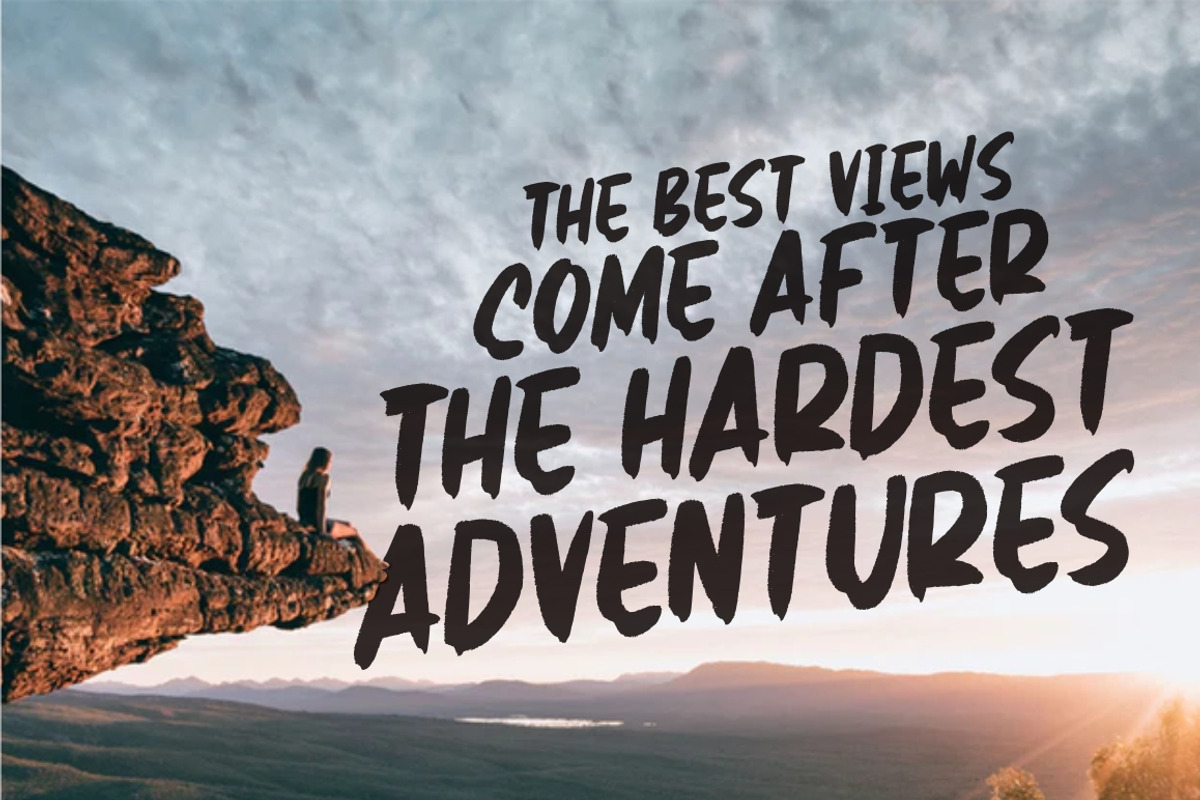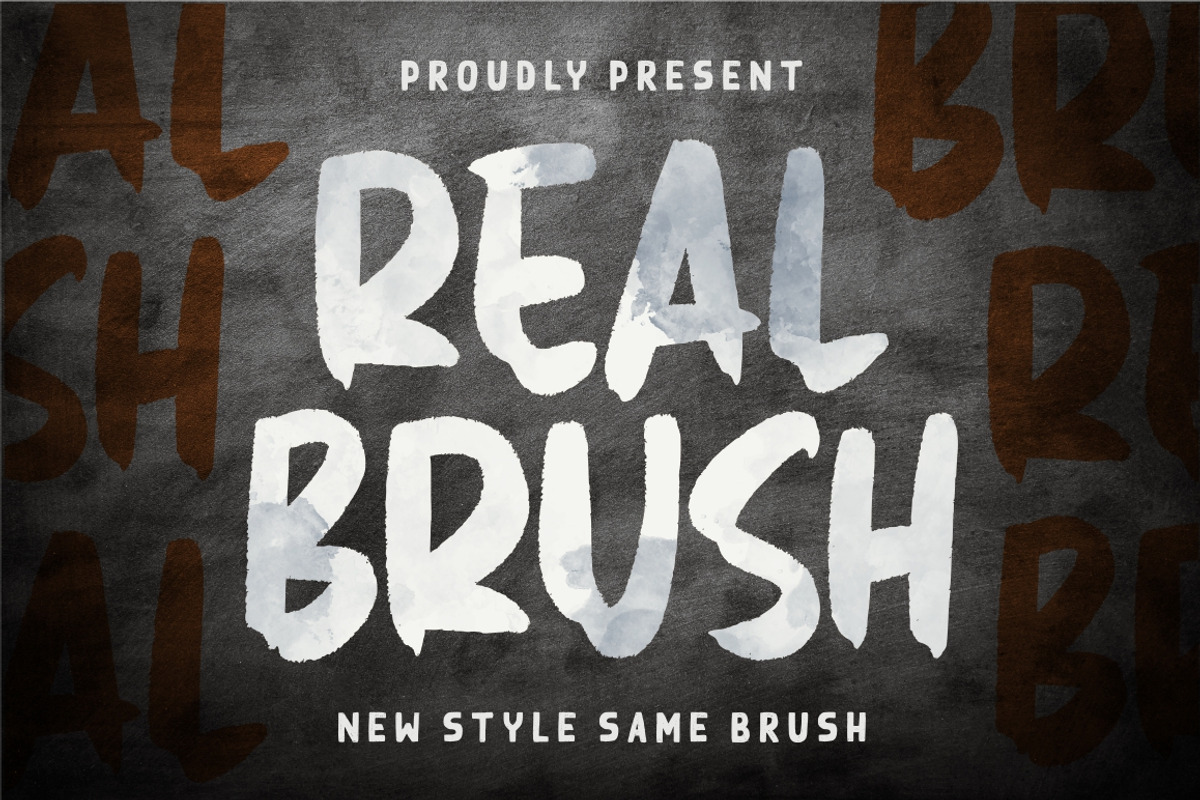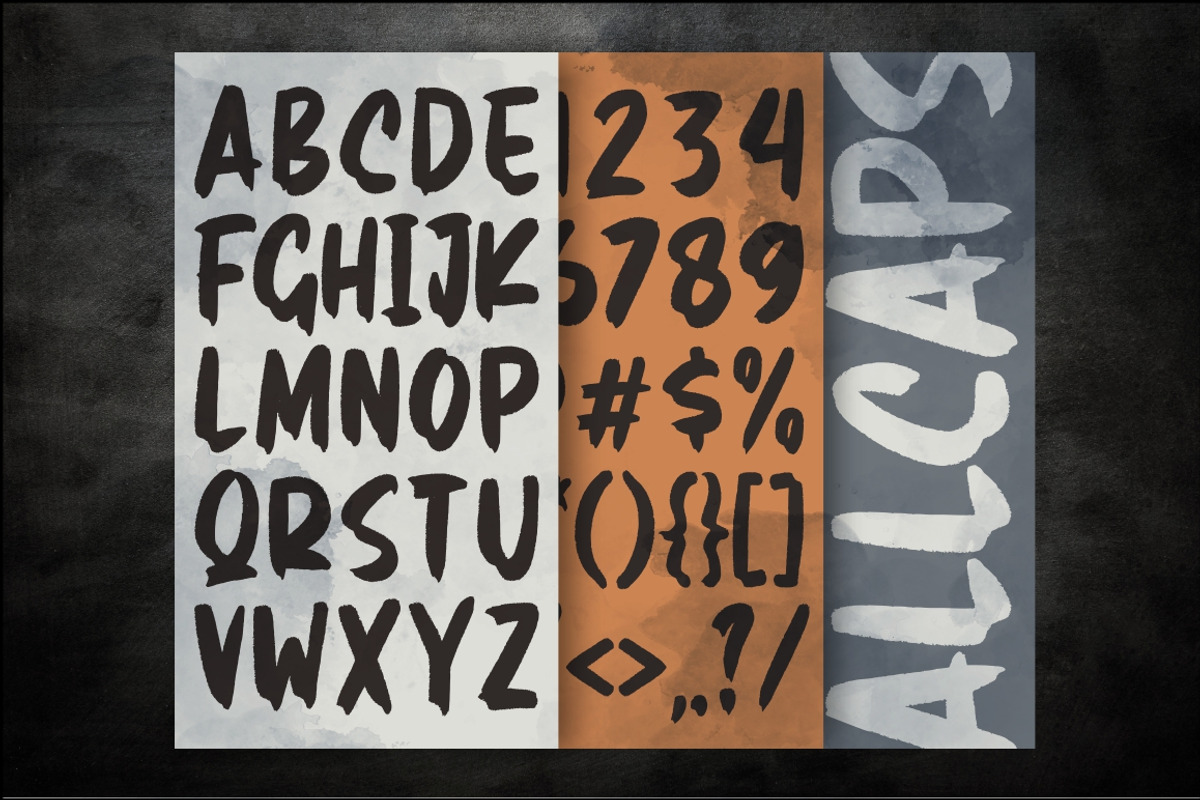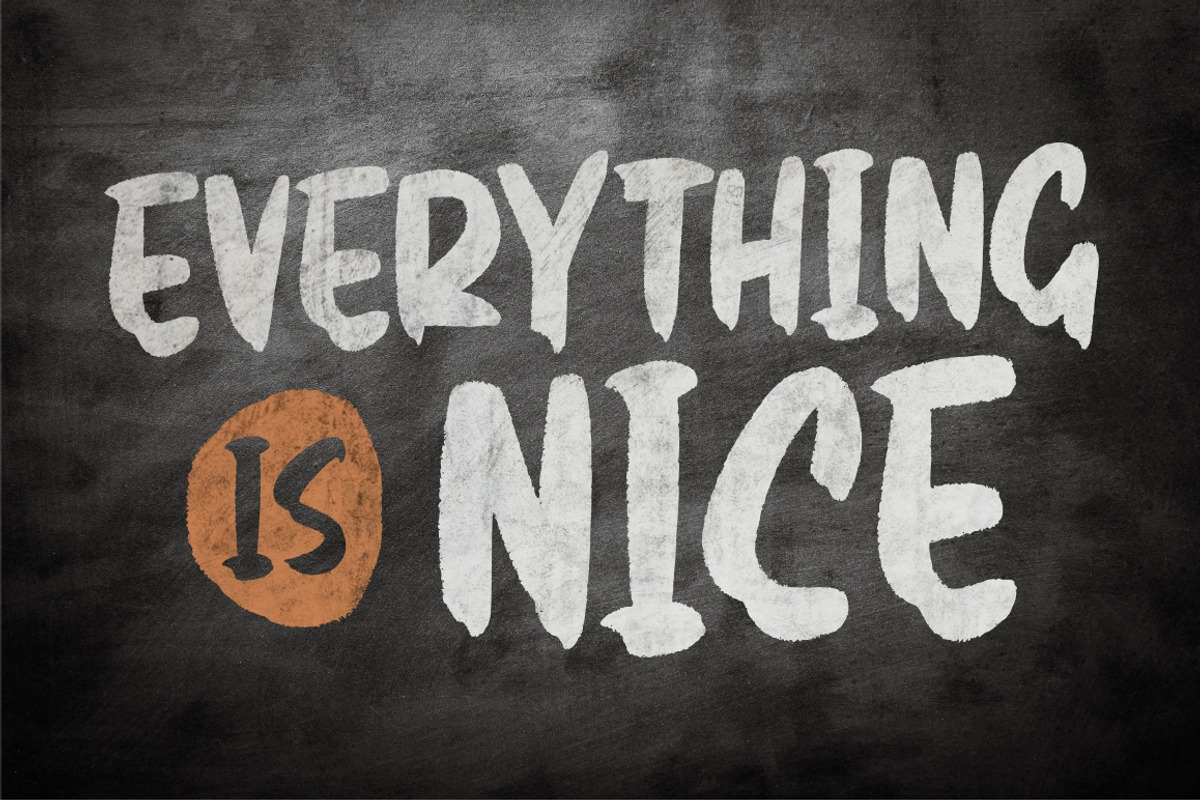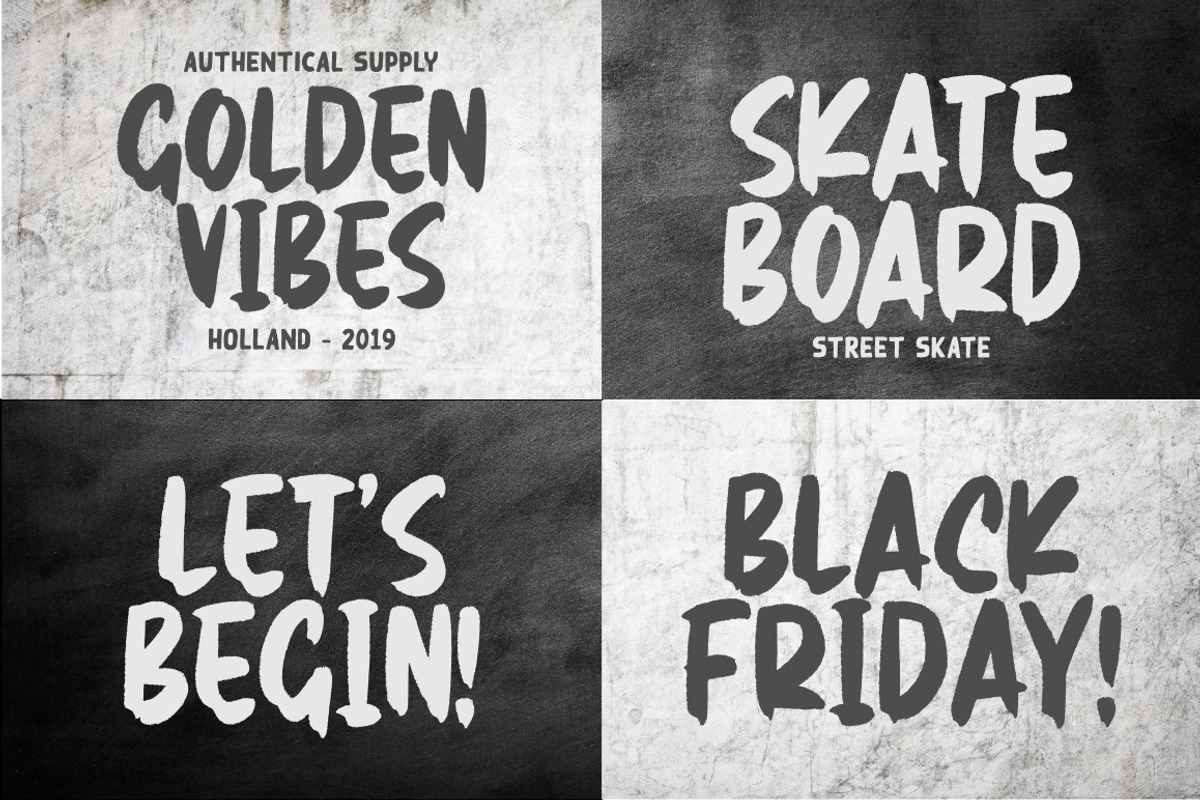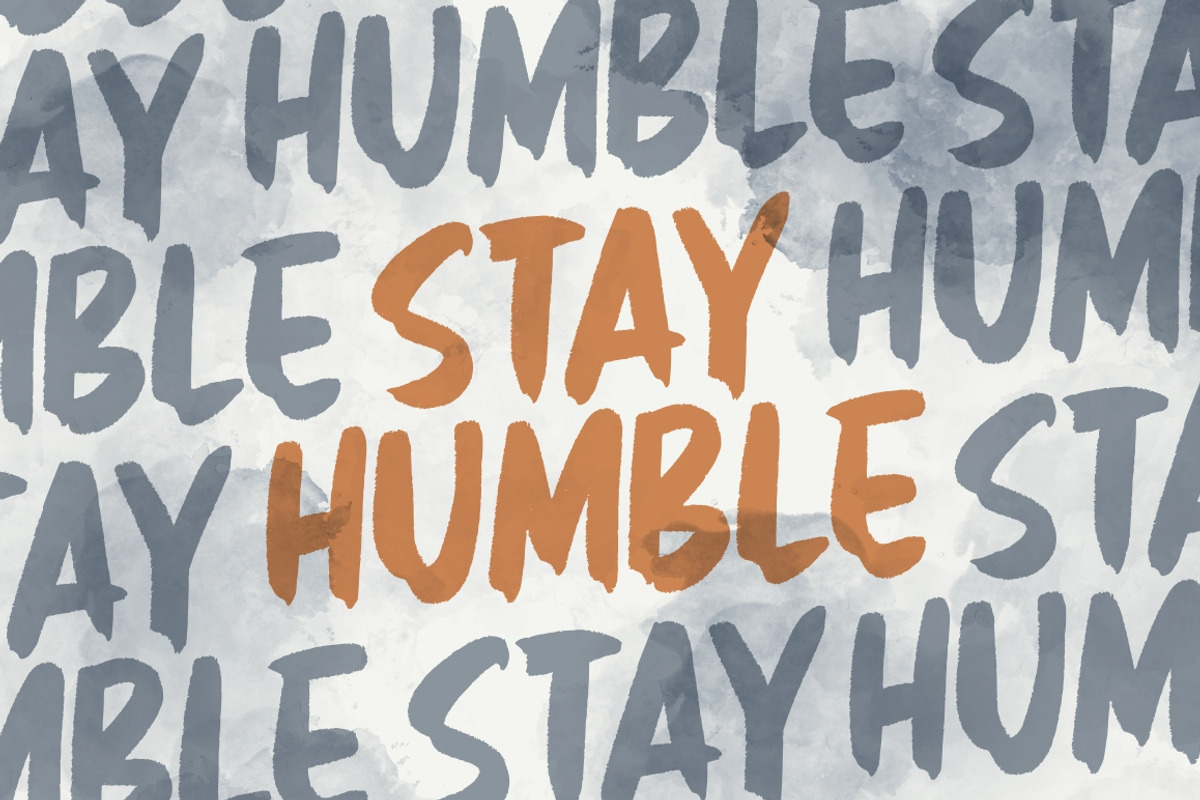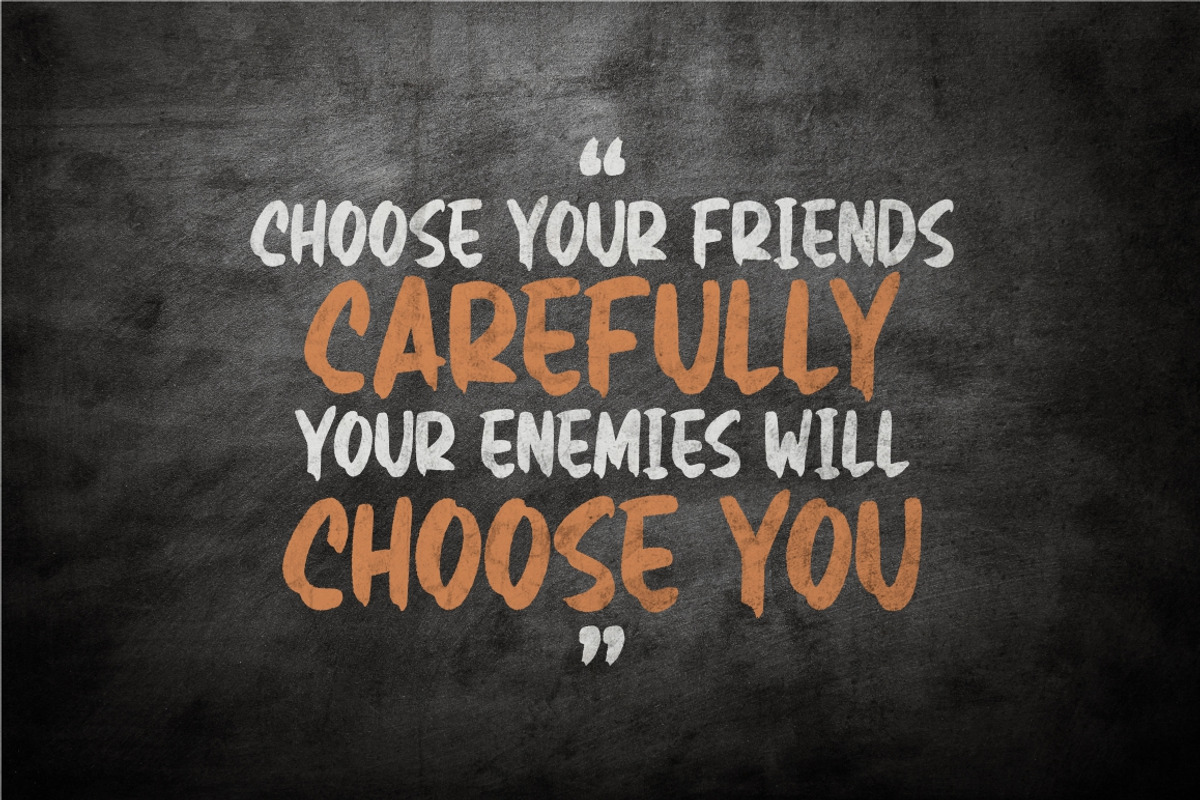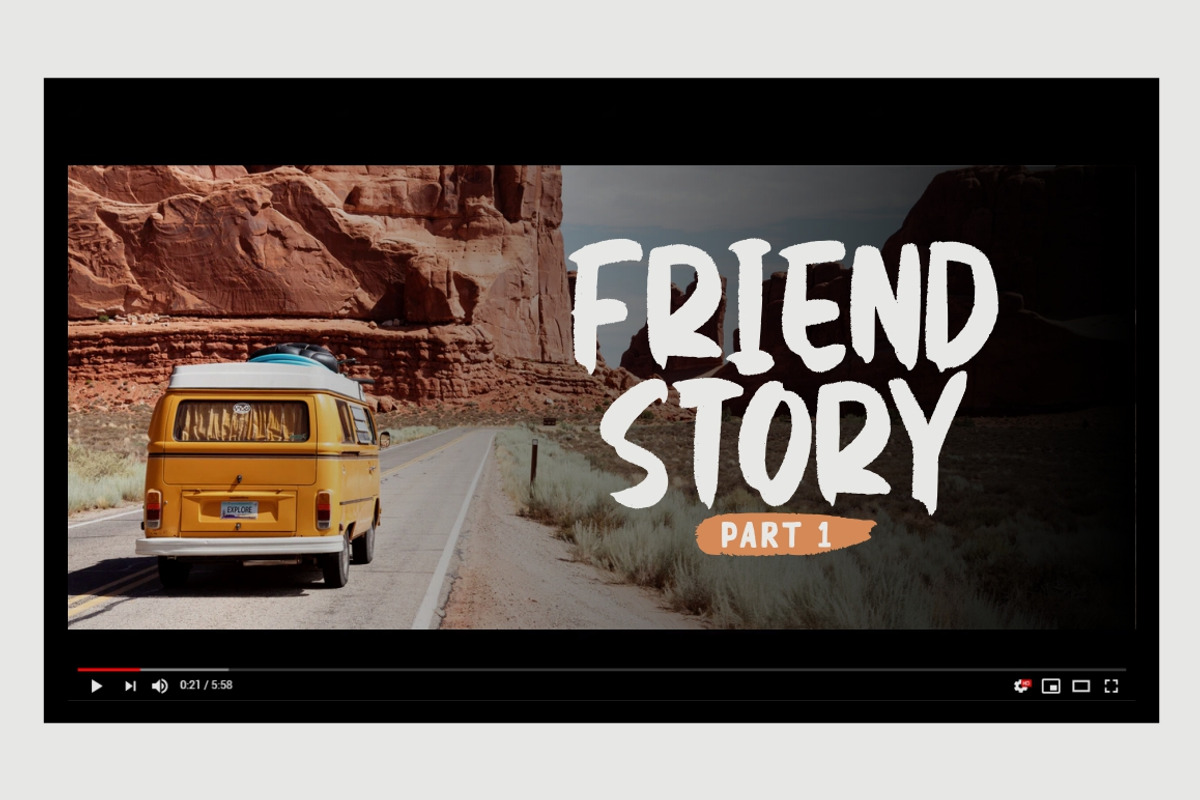
Real Brush - Handbrush Font
Introducing Real Brush - Handbrush Font
Real Brush combines attractive curves with a fresh urban edge; delivering a stylish script which is guaranteed to add an eye-catching appeal to your logo designs, brand imagery, handwritten quotes, product packaging, merchandise & social media posts
Real Brush - Handbrush Font by Garisman Std fits naturally into Branding, posters, packaging, typography.